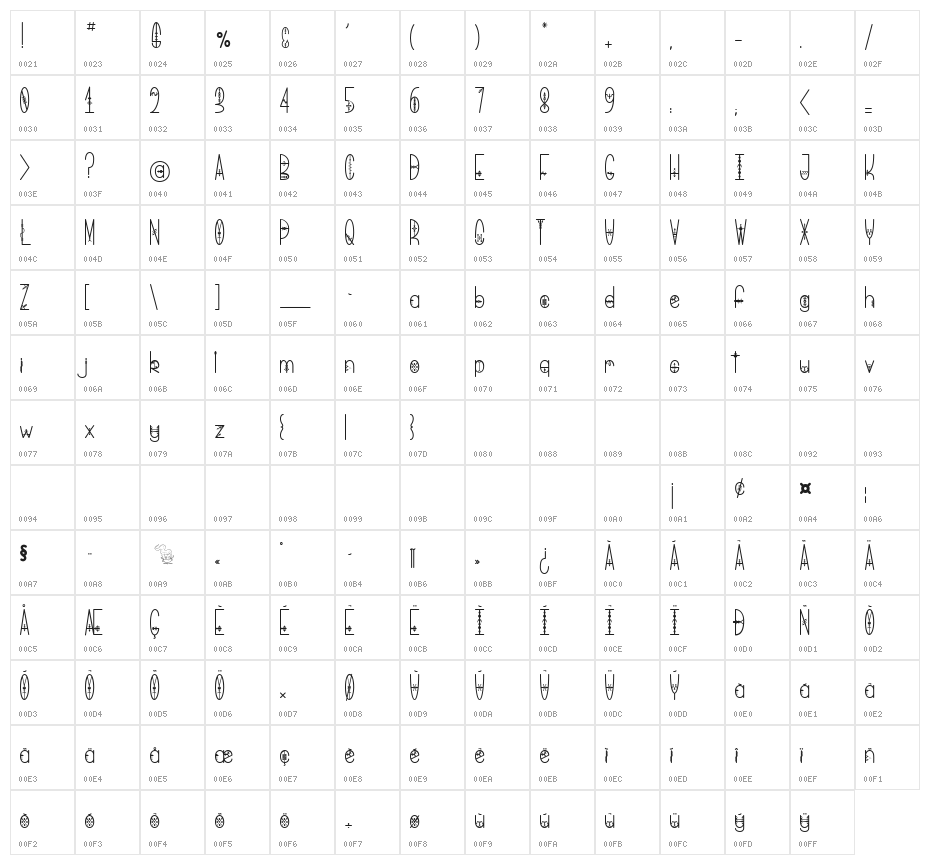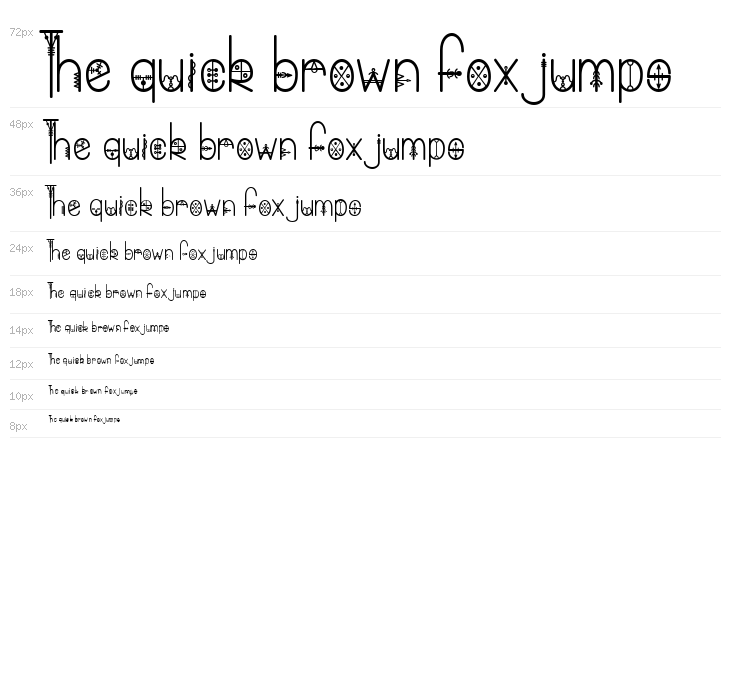
Bring me That Glyph 2 Font
Bring me That Glyph 2 Description
This font features a unique and intricate design, characterized by decorative elements within each letterform. The letters are tall and slender, with embellishments that resemble tribal or ancient symbols, adding a mystical and artistic flair. The uppercase and lowercase letters maintain a consistent style, with the lowercase being slightly more rounded. Numbers and special characters follow the same ornate pattern, ensuring a cohesive look across all glyphs. The overall appearance is both striking and unconventional, making it suitable for creative and artistic projects.
| Proposed Projects | Ideal for artistic posters, album covers, fantasy-themed events, and creative branding. |